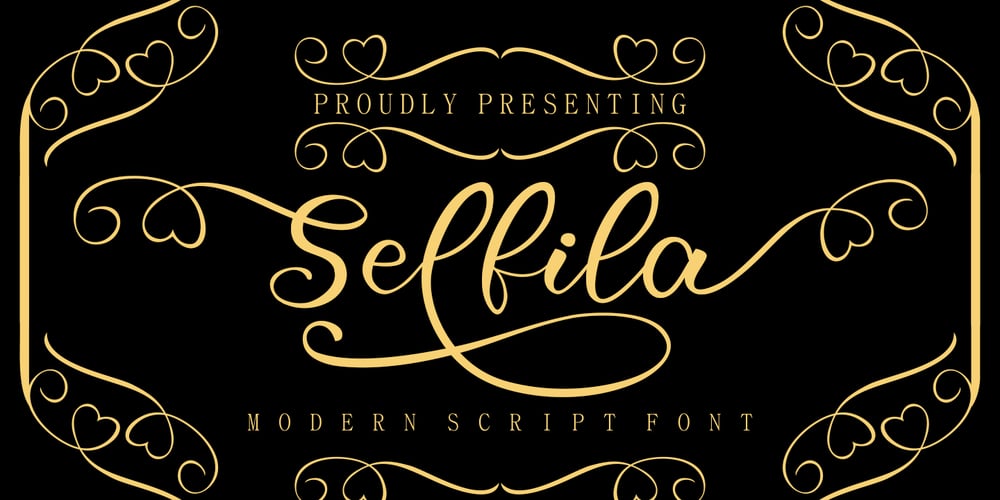
Selfila Font Family was designed by Irfan Mahmudin and published by Skiiller Studio. Selfila contains 1 styles and family package options. Selfila is an incredibly stunning script font featuring beautiful and rich swashes. It will elevate any design idea! Containing 150+ OpenType feature.